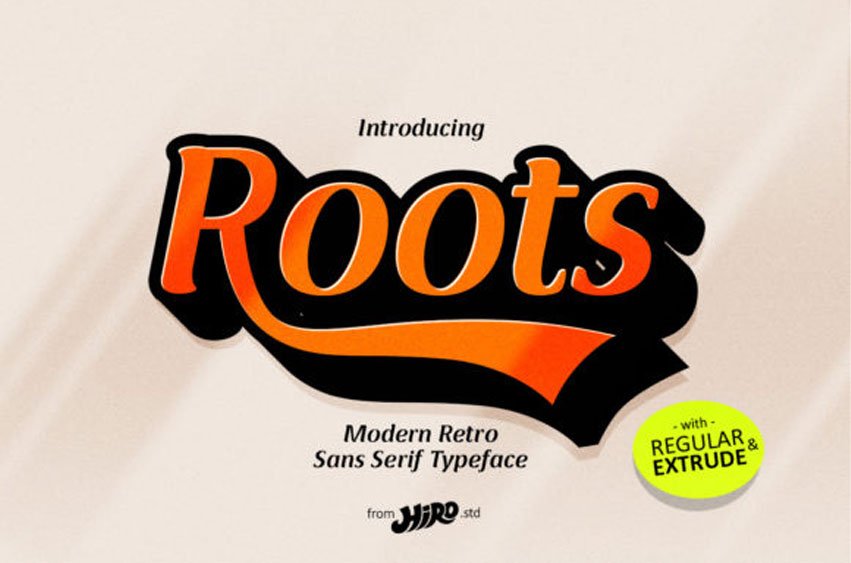
Roots Font
Roots Font is a fun and bold handwritten font, featuring a vintage style.
It is suitable for any branding, product packaging, invitation, quote, t-shirt, label, poster, logo that you wish to develop.